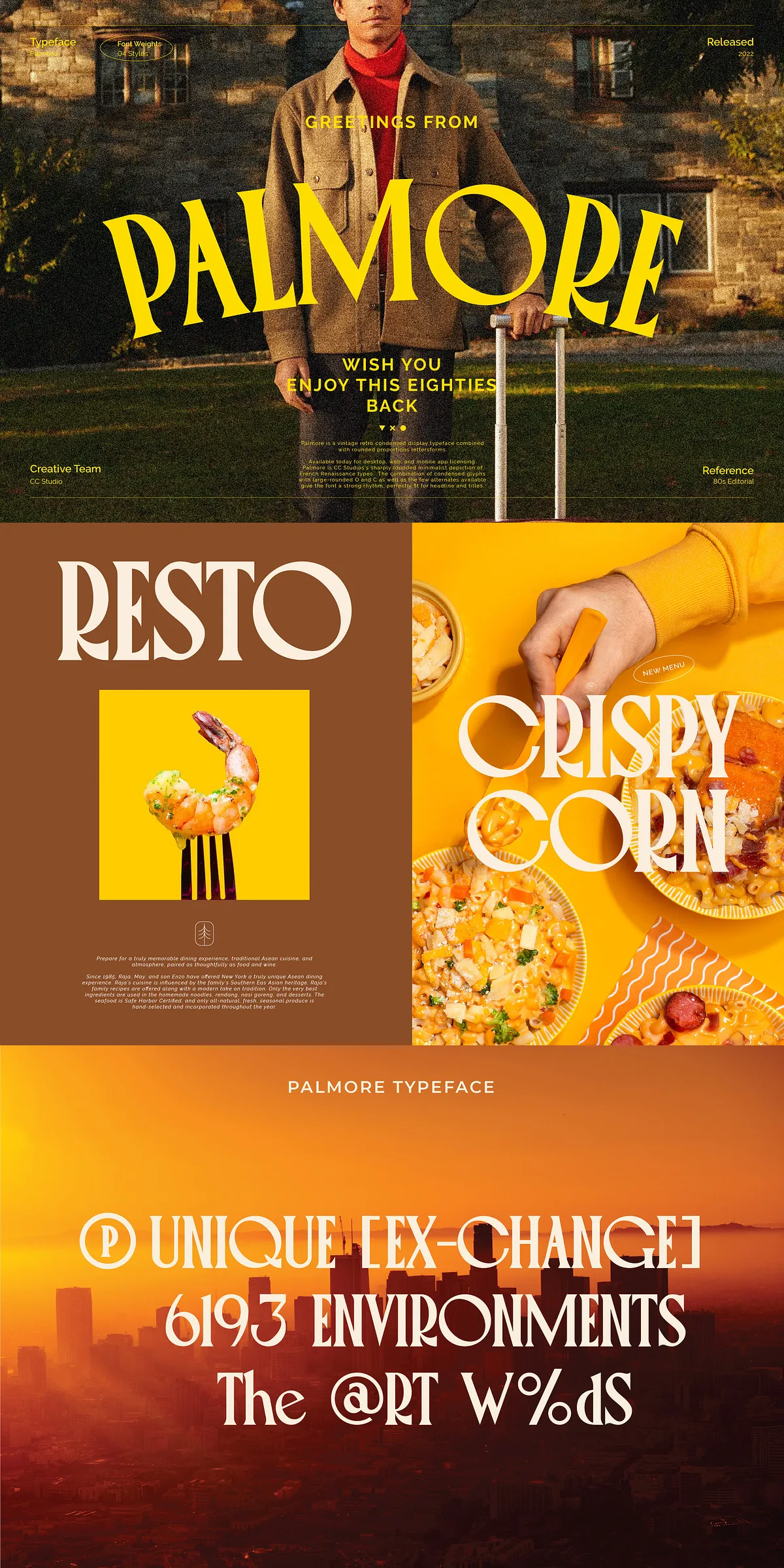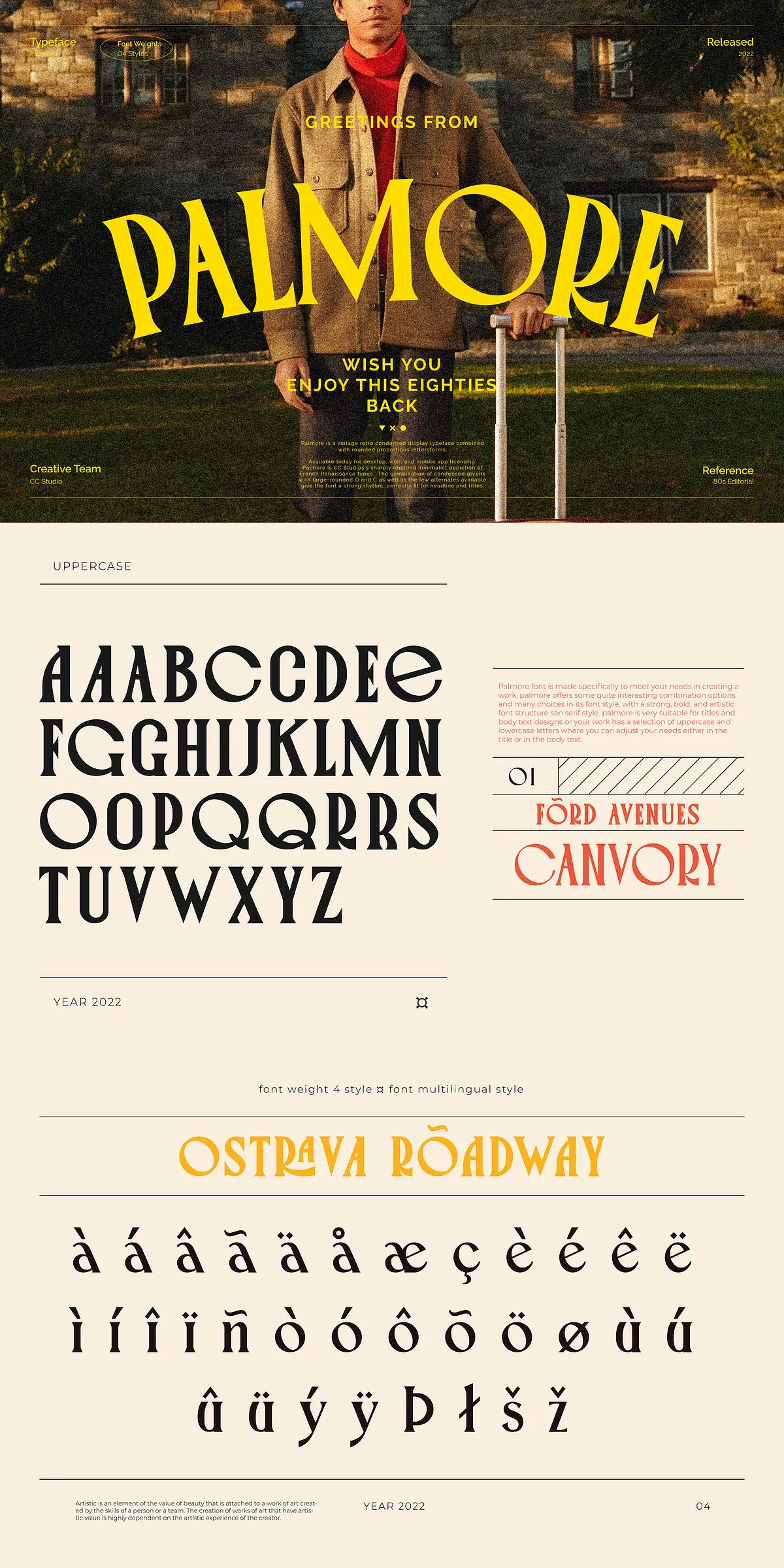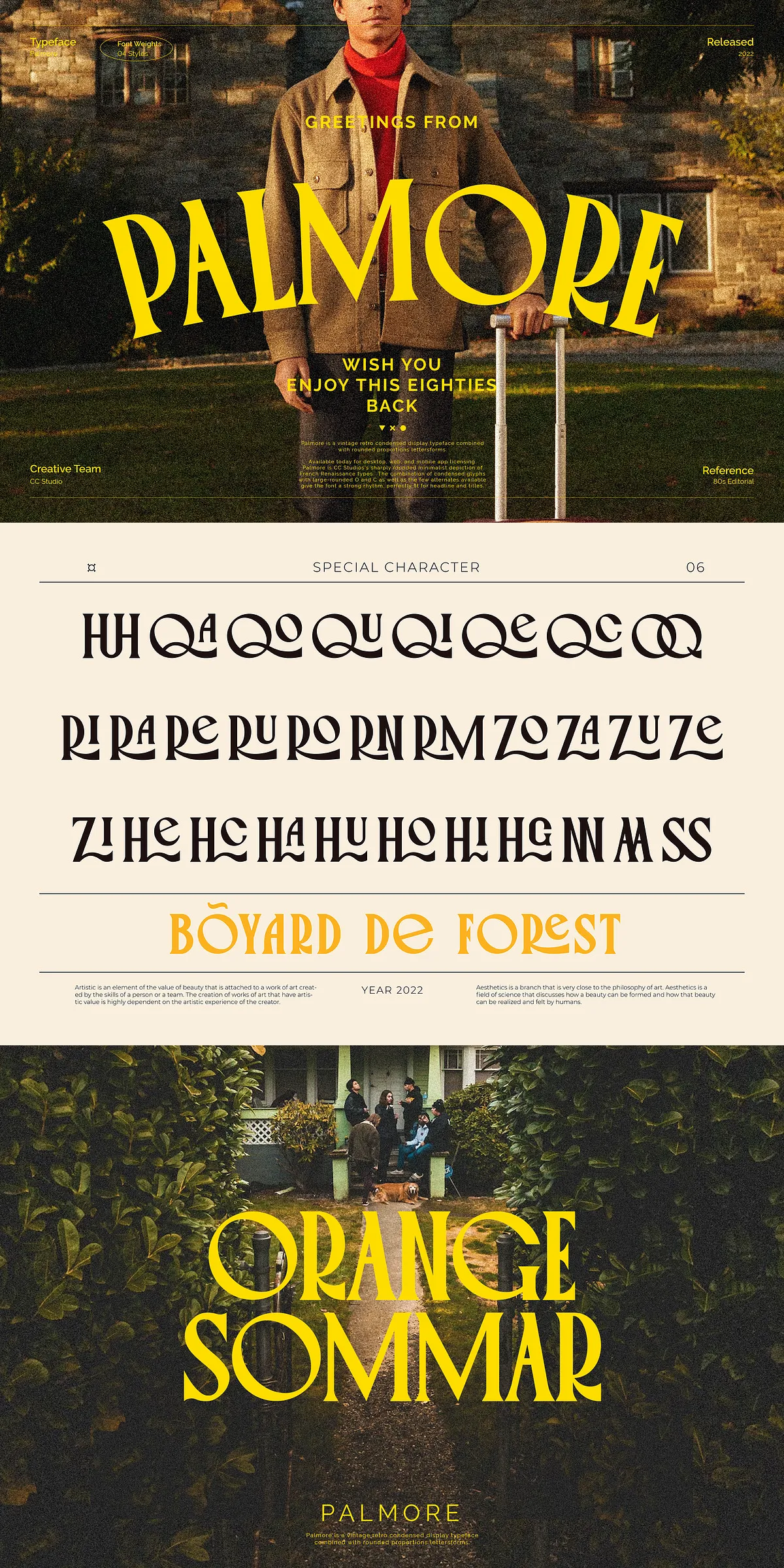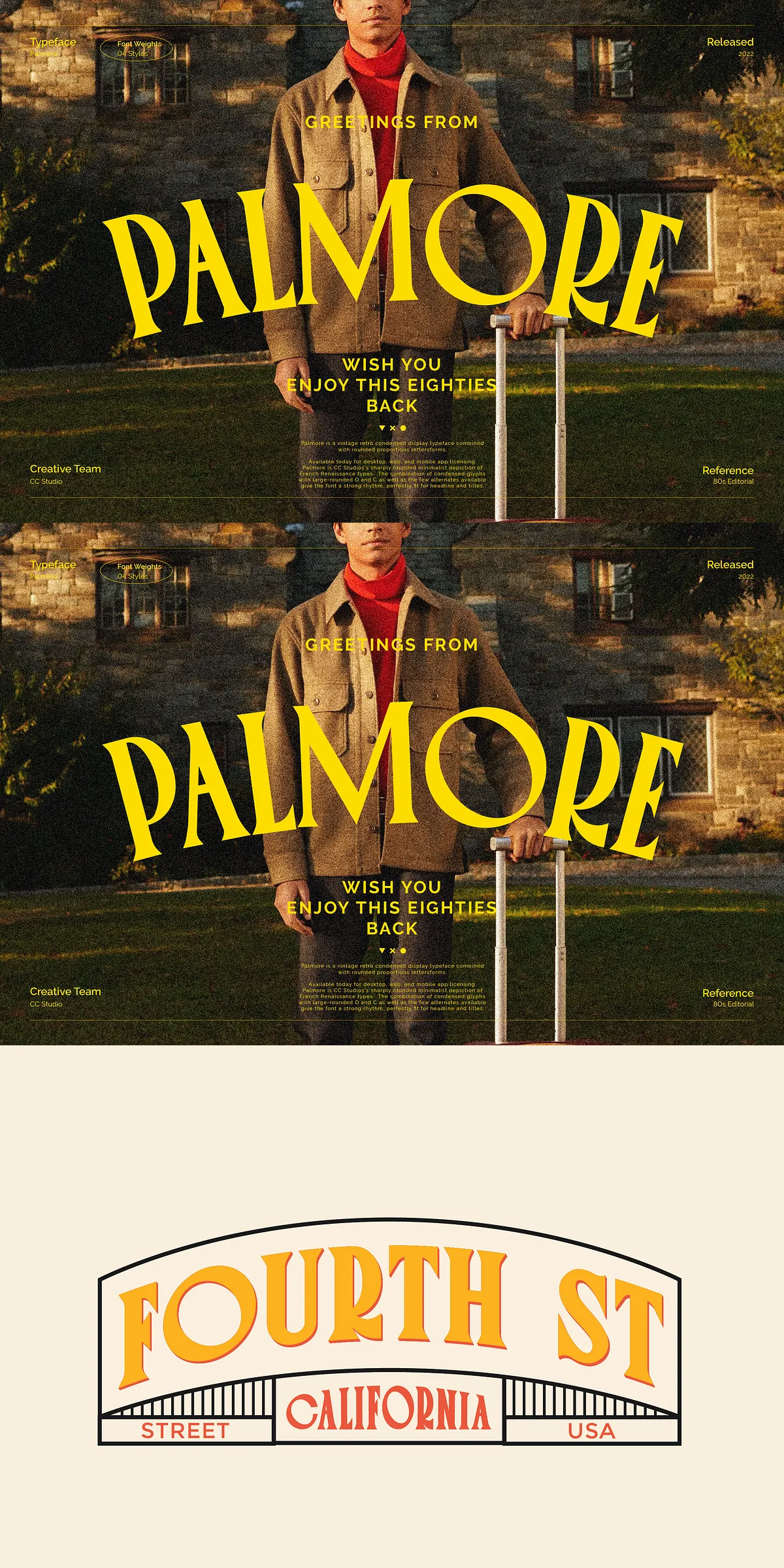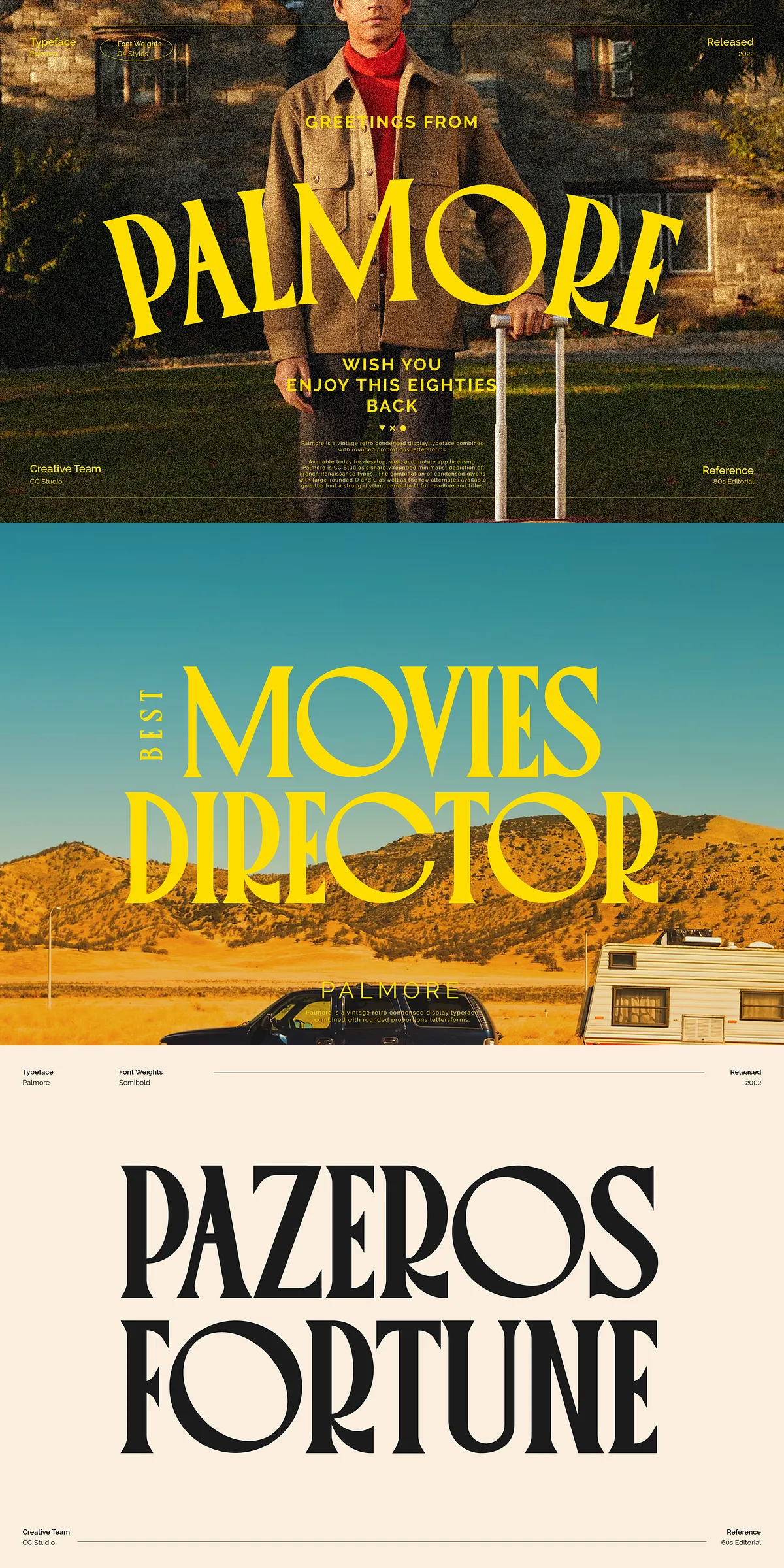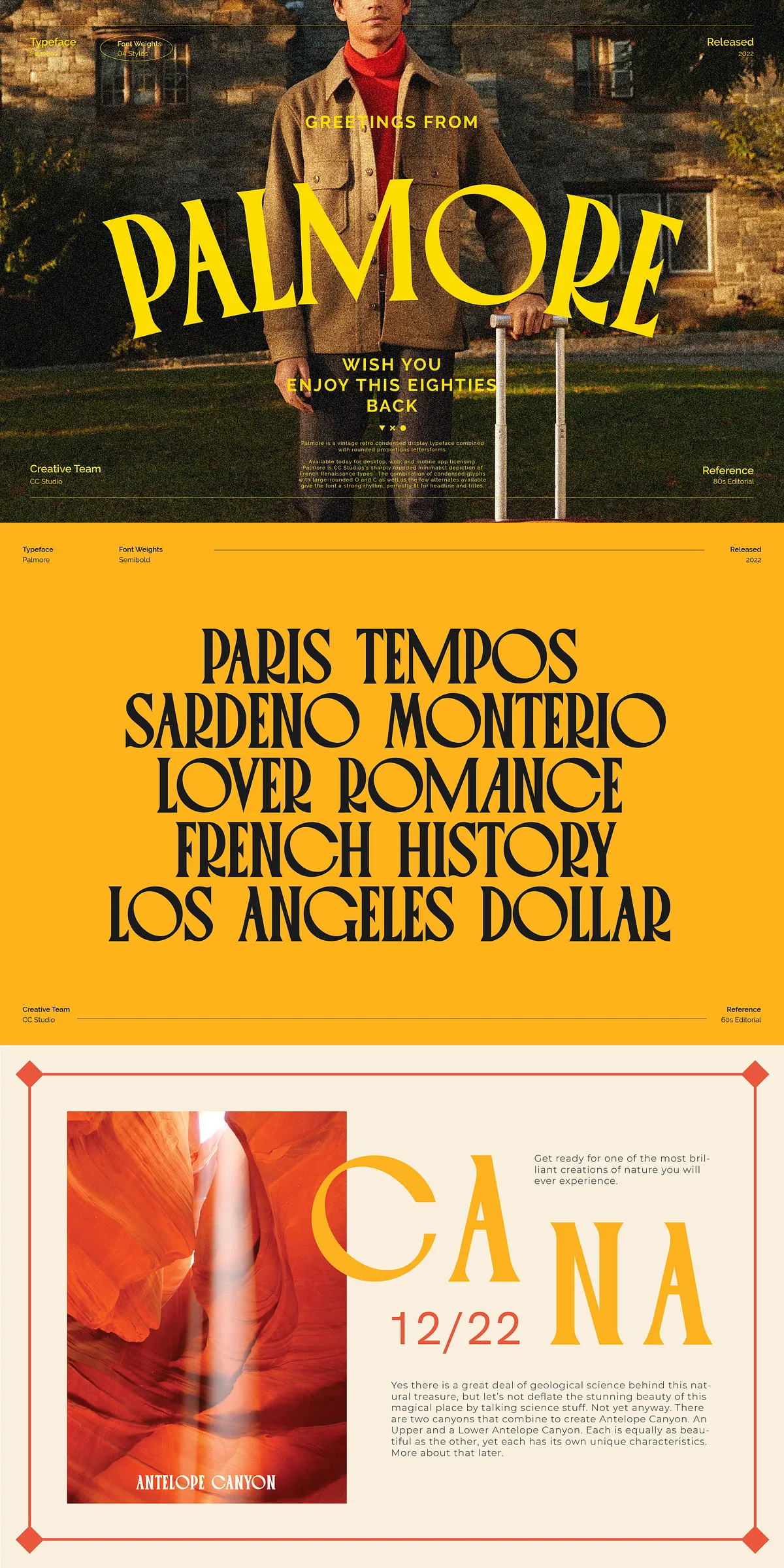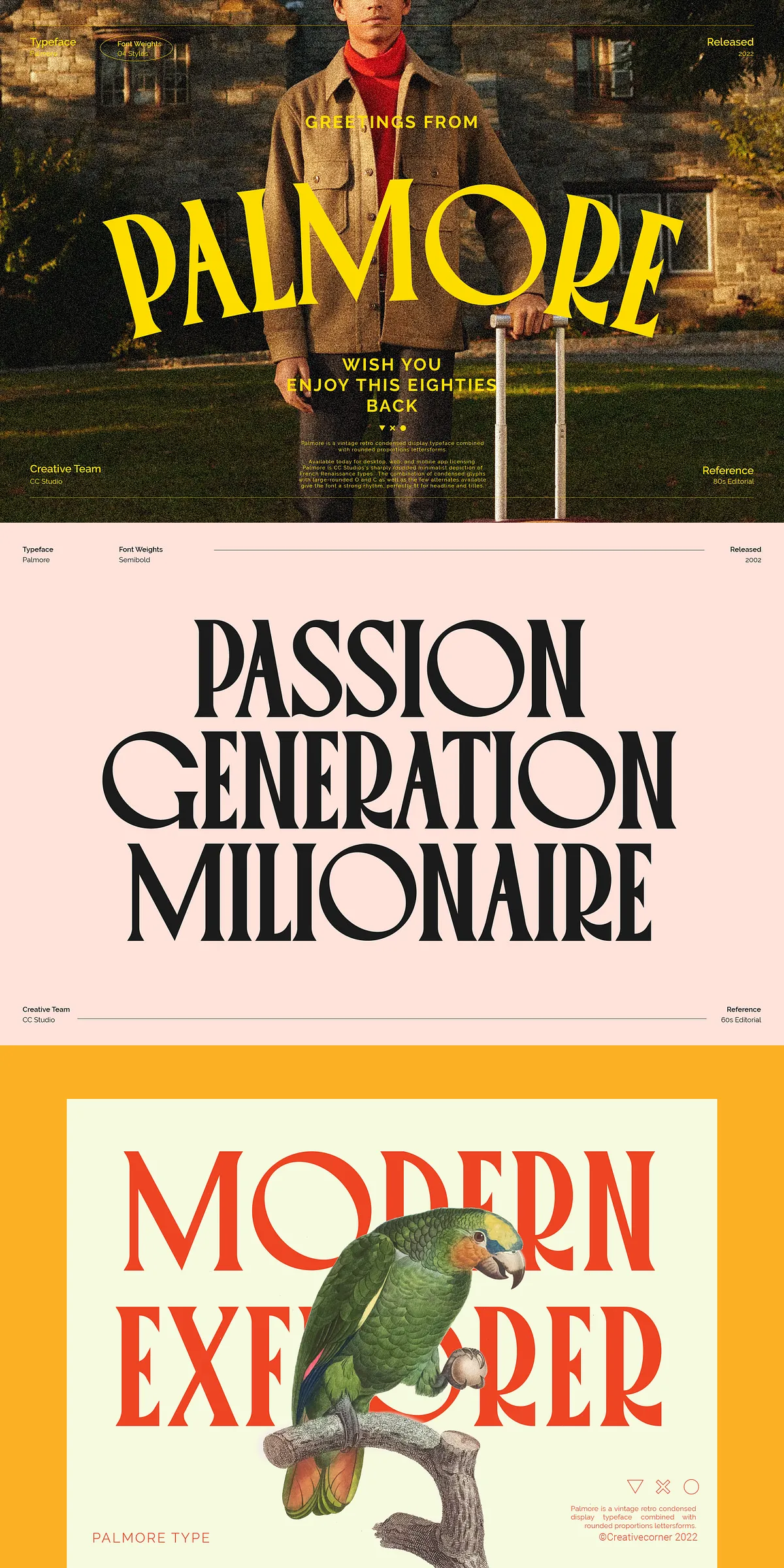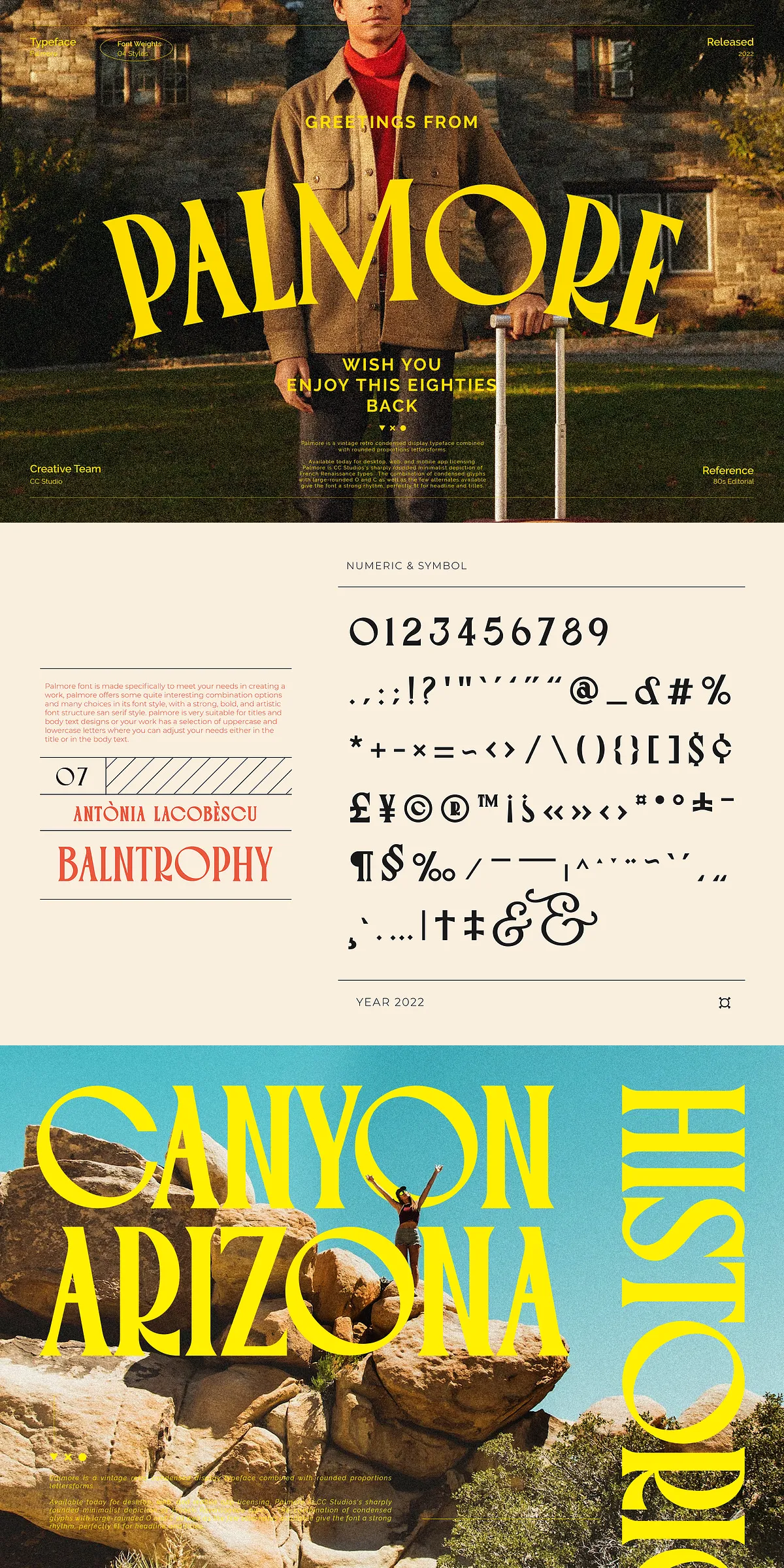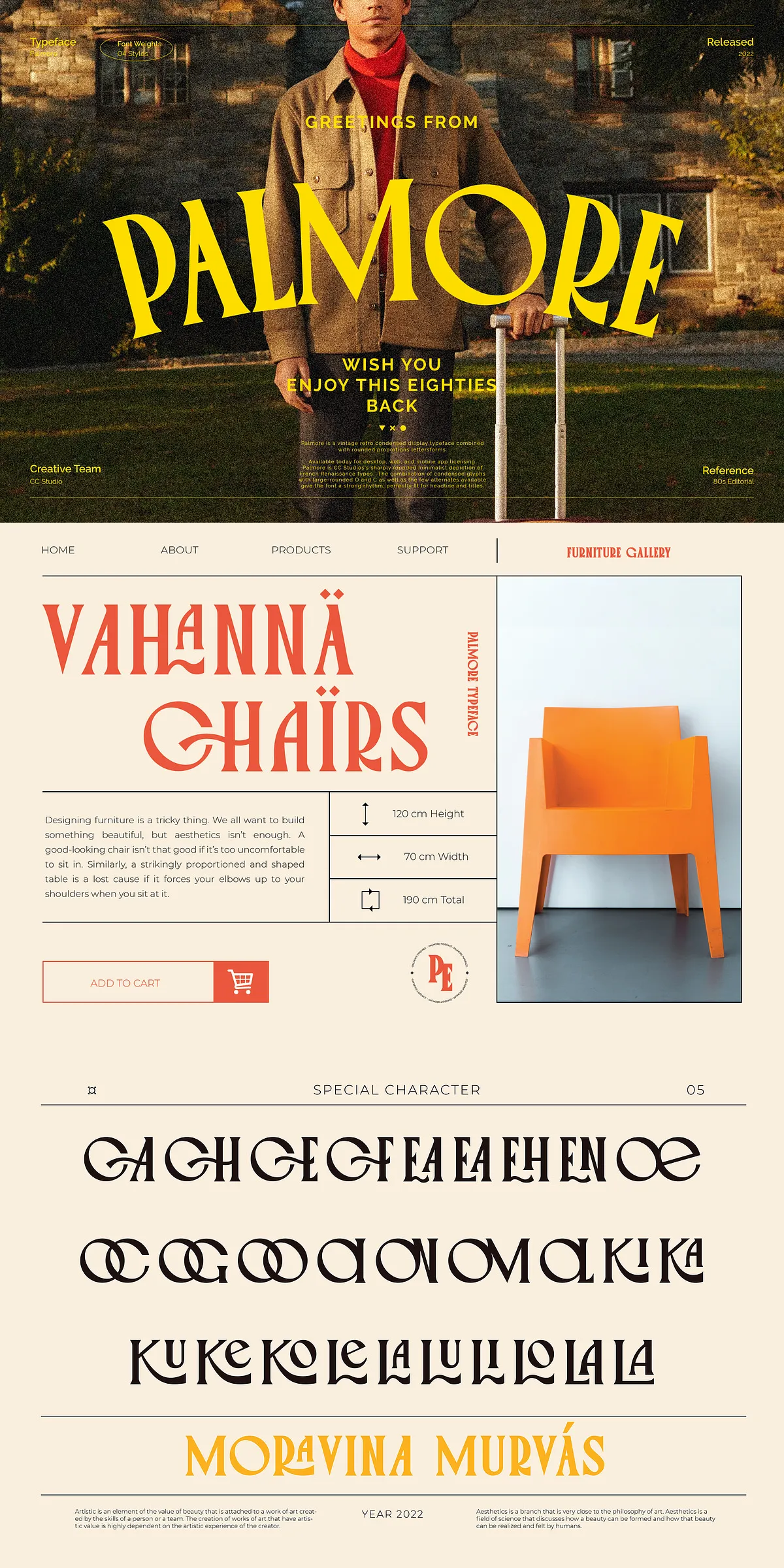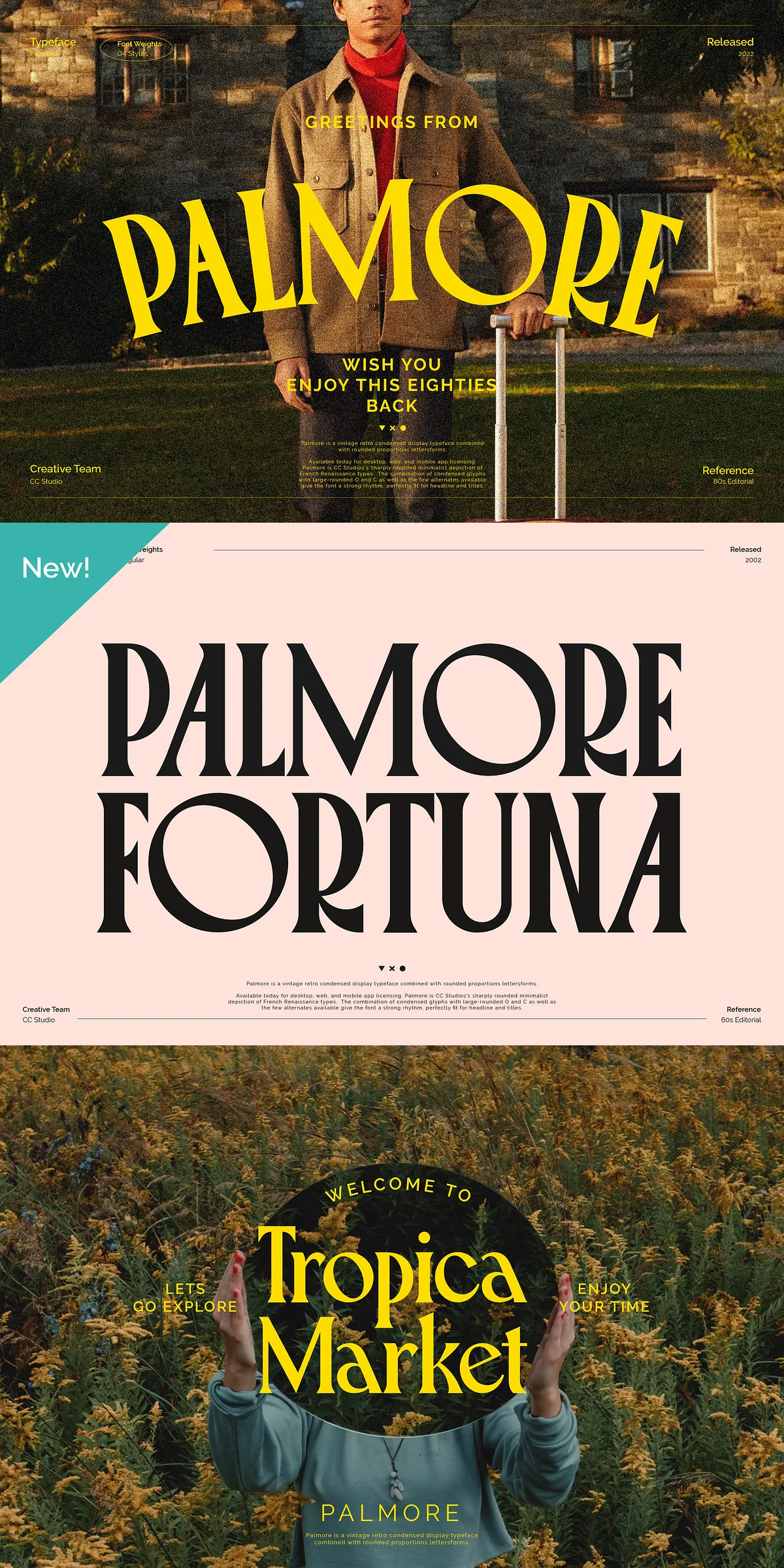
PALMORE – Vintage Rounded Serif
Palmore is a distinctive vintage retro condensed display typeface that combines classic design elements with modern versatility. Its unique blend of condensed letterforms and rounded proportions creates a strong visual rhythm, making it an ideal choice for headlines, titles, and any design that demands attention. If you appreciate classic and vintage typography styles, Palmore offers a perfect balance of nostalgia and contemporary flair.
Unique Design Characteristics of Palmore
The defining feature of Palmore lies in its condensed glyphs paired with large, rounded characters such as the letter “O” and “C.” This combination produces a dynamic and engaging rhythm that enhances the overall aesthetic of your text. The font also includes several alternate characters, allowing designers to customize their typography and add personality to their projects. These alternates contribute to the font’s versatility and creative potential.
Extensive Glyph Set and Multilingual Support
Palmore comes packed with over 300 glyphs, including stylistic alternates and multilingual characters. This extensive character set ensures that you can use the font across a wide range of languages and design contexts without compromising style or readability. The availability of alternates also encourages experimentation, enabling you to explore different looks and create unique typographic compositions.
Palmore is available in four distinct weights, providing flexibility to suit various design needs. Whether you require a bold statement or a lighter touch, these weights allow you to maintain consistency while adapting to different visual hierarchies. The font is delivered in both TTF and OTF formats, ensuring compatibility with most design software and platforms.
Why Choose Palmore for Your Projects?
Palmore’s vintage retro style combined with its condensed and rounded letterforms makes it a standout choice for designers aiming to evoke a classic yet fresh aesthetic. Its strong rhythm and visual impact are perfect for grabbing attention in headlines, posters, branding, and editorial layouts. The font’s versatility, supported by multiple weights and extensive glyph options, empowers you to create compelling and memorable designs.